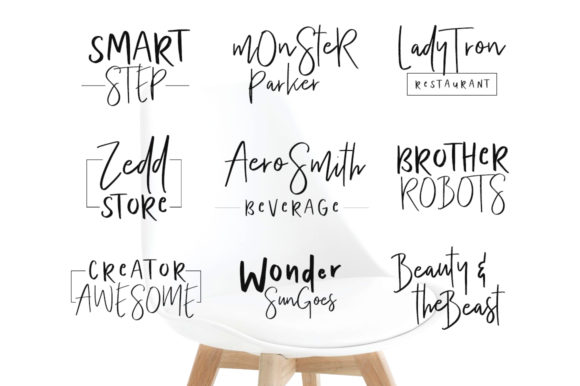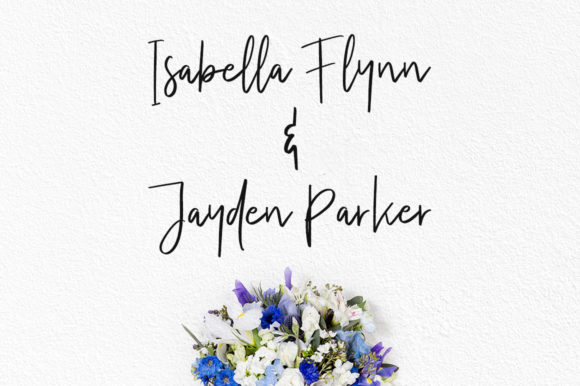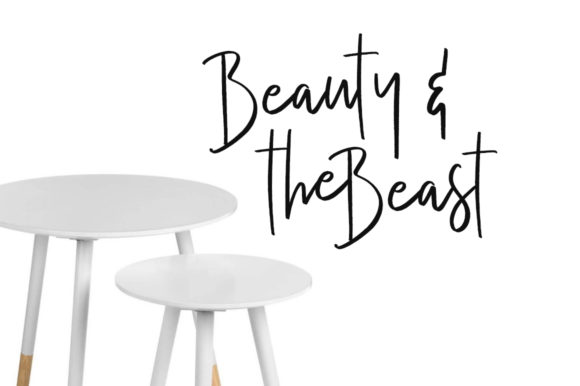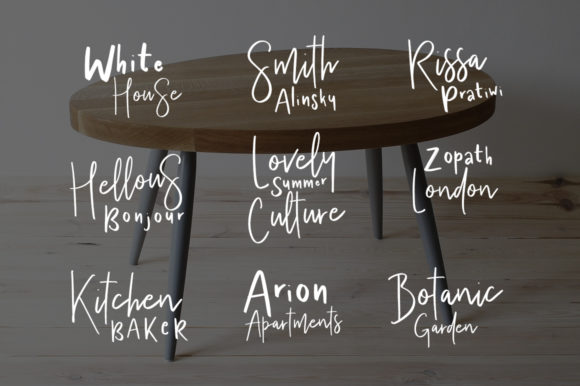
Glamoush Font: Elevate Your Designs with Timeless Elegance
Are you a designer or crafter looking for a font that exudes sophistication and charm? Look no further than Glamoush Font, a lovely and timeless handwritten font that’s perfect for creating eye-catching logos, branding, and quotes. With its unique and beautiful touch, Glamoush Font is sure to make your design come alive!
The Beauty of Glamoush Font
Glamoush Font is a masterclass in elegant typography. Every letter has been carefully crafted to showcase a distinctive and beautiful touch, making it perfect for designs that require a personal and sophisticated feel. The font’s handwritten nature gives it a warm and inviting tone, making it ideal for use in a variety of design applications, from logos and branding to quotes and social media graphics.
Why Choose Glamoush Font?
So, what sets Glamoush Font apart from other fonts? Here are just a few reasons why designers and crafters love working with this beautiful font:
- Timeless Elegance: Glamoush Font has a classic, timeless quality that never goes out of style. Its elegant lines and curves make it perfect for designs that require a sophisticated touch.
- Unique Character: Every letter in Glamoush Font has a unique and beautiful touch, making it perfect for creating eye-catching logos, branding, and quotes.
- Versatility: Glamoush Font is incredibly versatile, making it suitable for use in a wide range of design applications, from digital graphics to print materials.
- Ease of Use: Glamoush Font is easy to use and pairs perfectly with a variety of other fonts, making it simple to incorporate into your existing design workflow.
Design Applications for Glamoush Font
Glamoush Font is a versatile font that can be used in a variety of design applications, including:
- Logo Design: Create a lasting impression with a custom logo that showcases your brand’s personality and style.
- Branding: Develop a cohesive brand identity with Glamoush Font, perfect for use on business cards, letterheads, and more.
- Quotes and Social Media Graphics: Add a touch of elegance to your quotes and social media graphics with Glamoush Font.
- Stationery and Invitations: Create beautiful stationery and invitations that showcase your personal style.
Tips for Using Glamoush Font
To get the most out of Glamoush Font, here are a few tips to keep in mind:
- Experiment with Font Sizes: Glamoush Font looks great in a variety of font sizes, so don’t be afraid to experiment to find the perfect size for your design.
- Pair with Other Fonts: Glamoush Font pairs perfectly with a variety of other fonts, so try combining it with other fonts to create a unique and eye-catching design.
- Use in Combination with Images: Glamoush Font looks great when used in combination with images, so try incorporating it into your design workflow to add an extra layer of depth and interest.
In conclusion, Glamoush Font is a beautiful and timeless handwritten font that’s perfect for designers and crafters looking to add a touch of elegance to their designs. With its unique and beautiful touch, Glamoush Font is sure to make your design come alive! Whether you’re creating logos, branding, quotes, or social media graphics, Glamoush Font is the perfect choice.